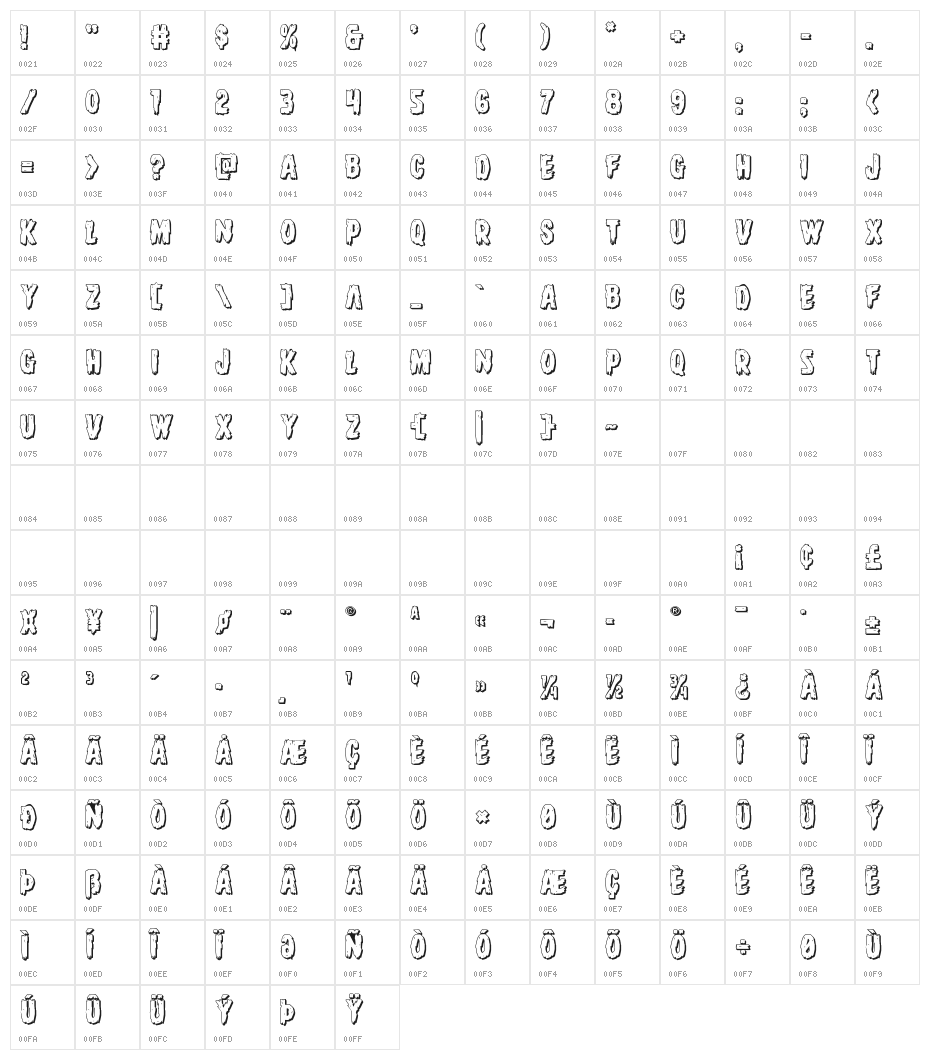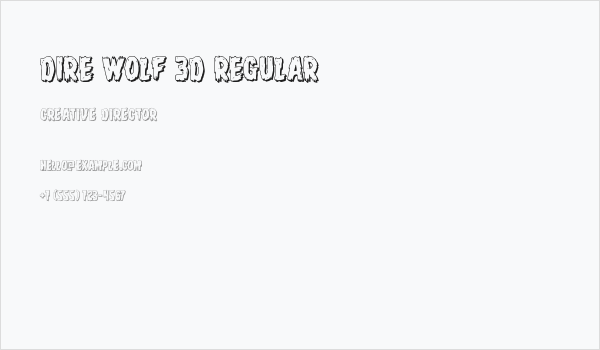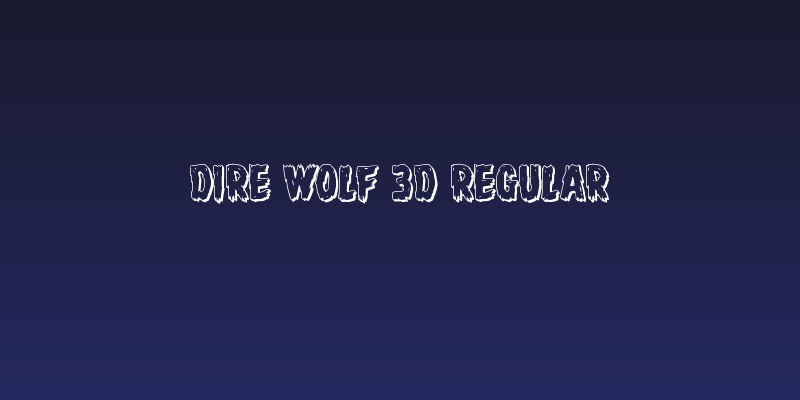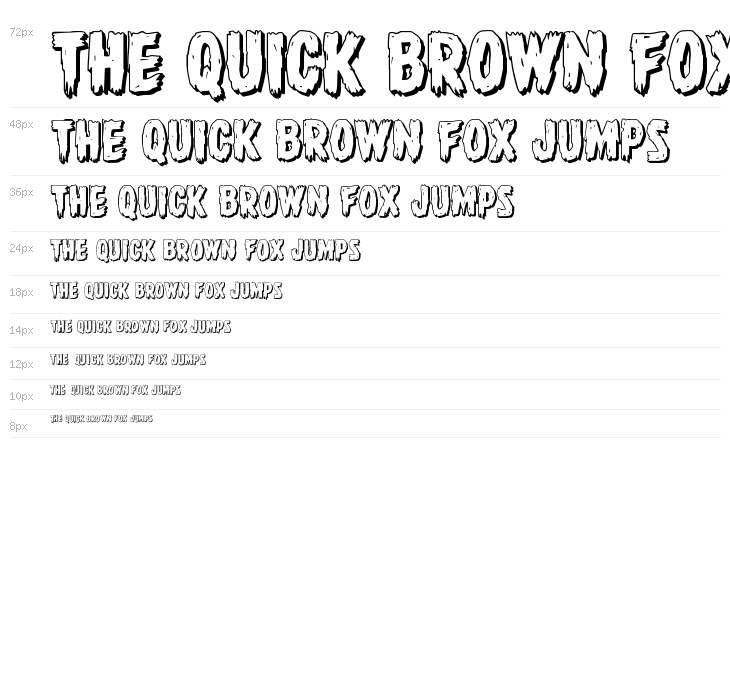
Dire Wolf 3D Regular Font
Dire Wolf 3D Regular Description
This font features a bold, rugged design with a three-dimensional effect that gives each character a sense of depth and texture. The letters appear as if they are carved from stone or wood, with rough edges and a slightly uneven surface that adds to the overall rugged aesthetic. The uppercase and lowercase letters maintain a consistent style, with thick strokes and a strong presence. The numbers and special characters are designed to match the boldness and texture of the alphabet, making the font suitable for projects that require a striking and impactful visual element. The font's unique style makes it ideal for themes related to adventure, wilderness, or fantasy.
Proposed ProjectsIdeal for adventure-themed posters, fantasy book covers, video game titles, and outdoor event branding.